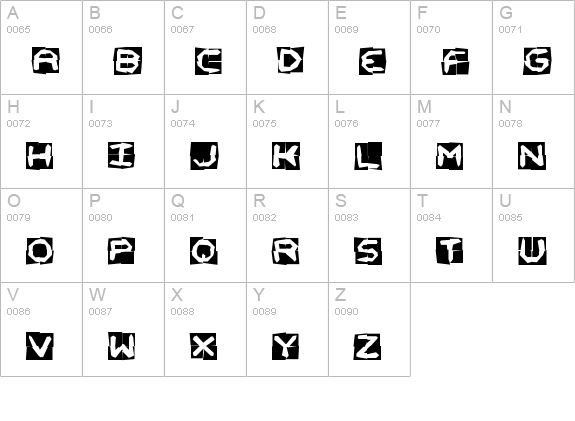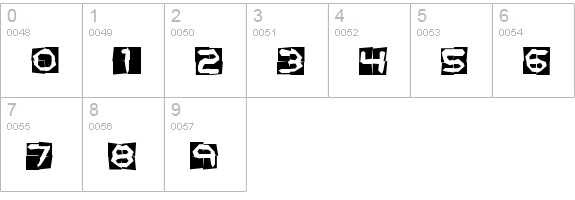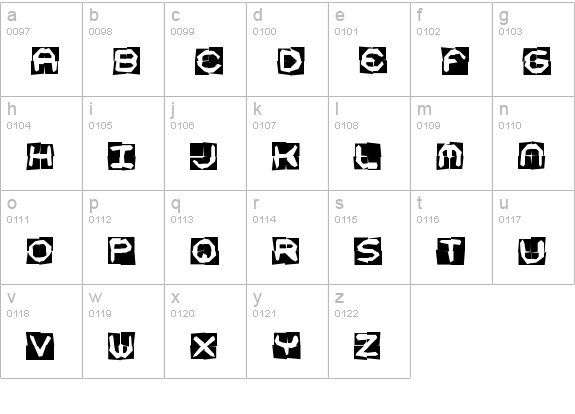
Mishmash 4x4o BRK Font Details
Mishmash 4x4o BRK font is a unique and eye-catching typeface that combines elements of both modern and playful design. With its bold and chunky letterforms, this font is perfect for creating attention-grabbing headlines, posters, and logos. The Mishmash 4x4o BRK font is versatile and can be used for a wide range of design projects, from branding to social media graphics. One of the best things about Mishmash 4x4o BRK font is that it is completely free to download. You can easily access this font on FontsMarket.com and start using it in your projects right away. Whether you're a professional designer or someone looking to add a touch of creativity to your personal projects, Mishmash 4x4o BRK font is a fantastic choice. Download it now and let your creativity shine!